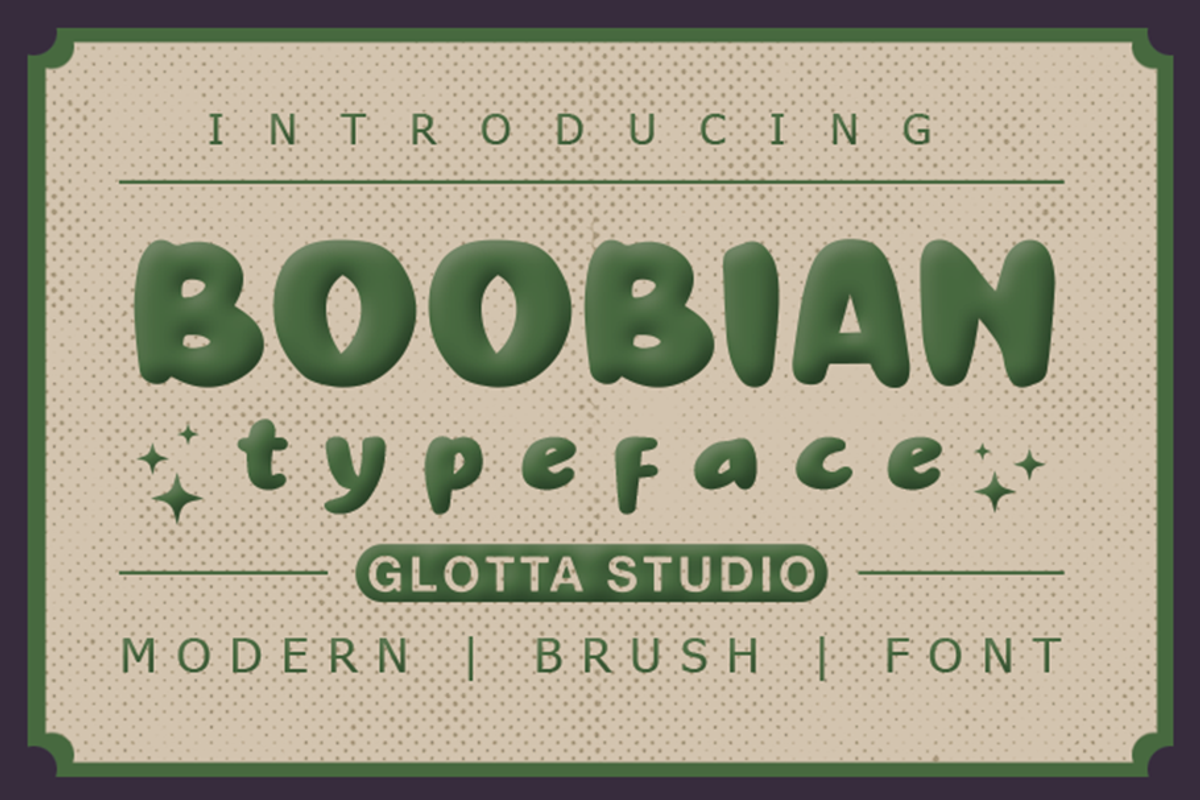
Please note that you must purchase this font for commercial use. You can download Boobian Font for free, strictly for personal testing purposes only. Boobian is a bold, playful, and modern display font designed to make a statement. With its thick strokes and unique letterforms, Boobian Font Free Download is perfect for creating attention-grabbing headlines, logos, posters, branding, and social media content.
Its distinctive design adds a creative and fun vibe to any project, making it ideal for anything that needs a bold, energetic look. Boobian includes uppercase letters, numerals, punctuation, and multilingual support, ensuring versatility for global design needs.
Whether you're creating a fun brand, a lively marketing campaign, or eye-catching visuals, Boobian brings personality and impact to your typography.